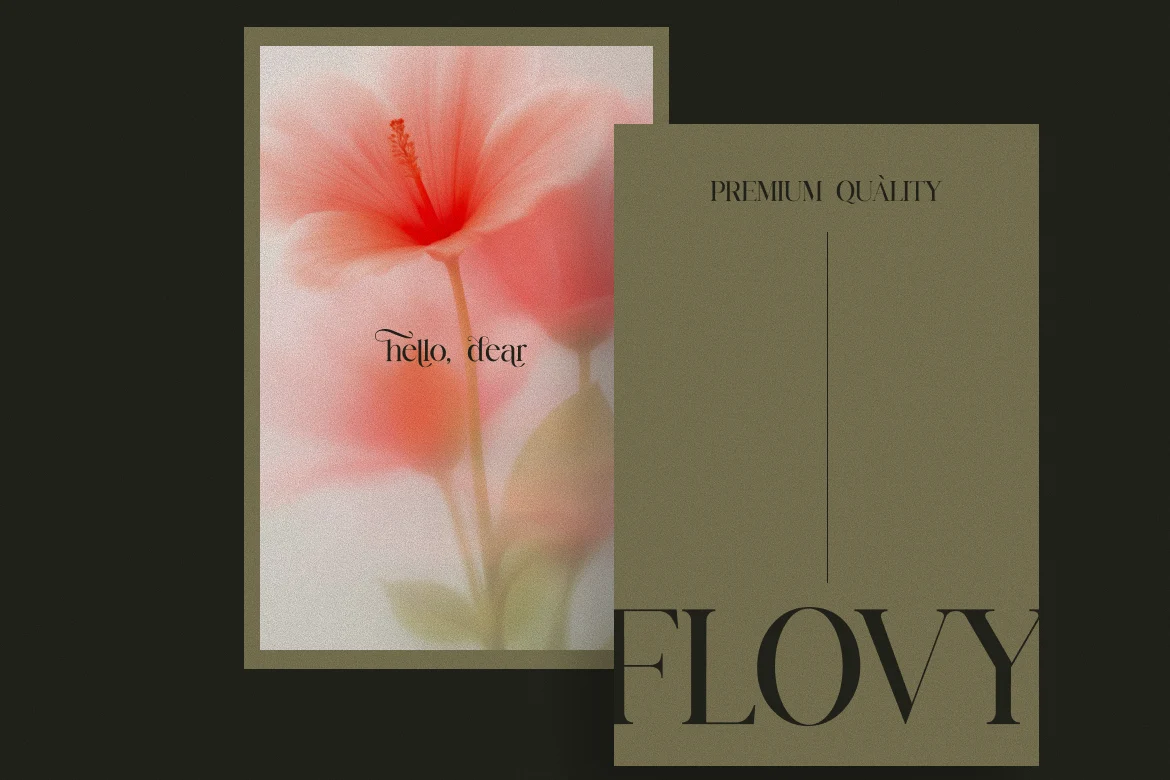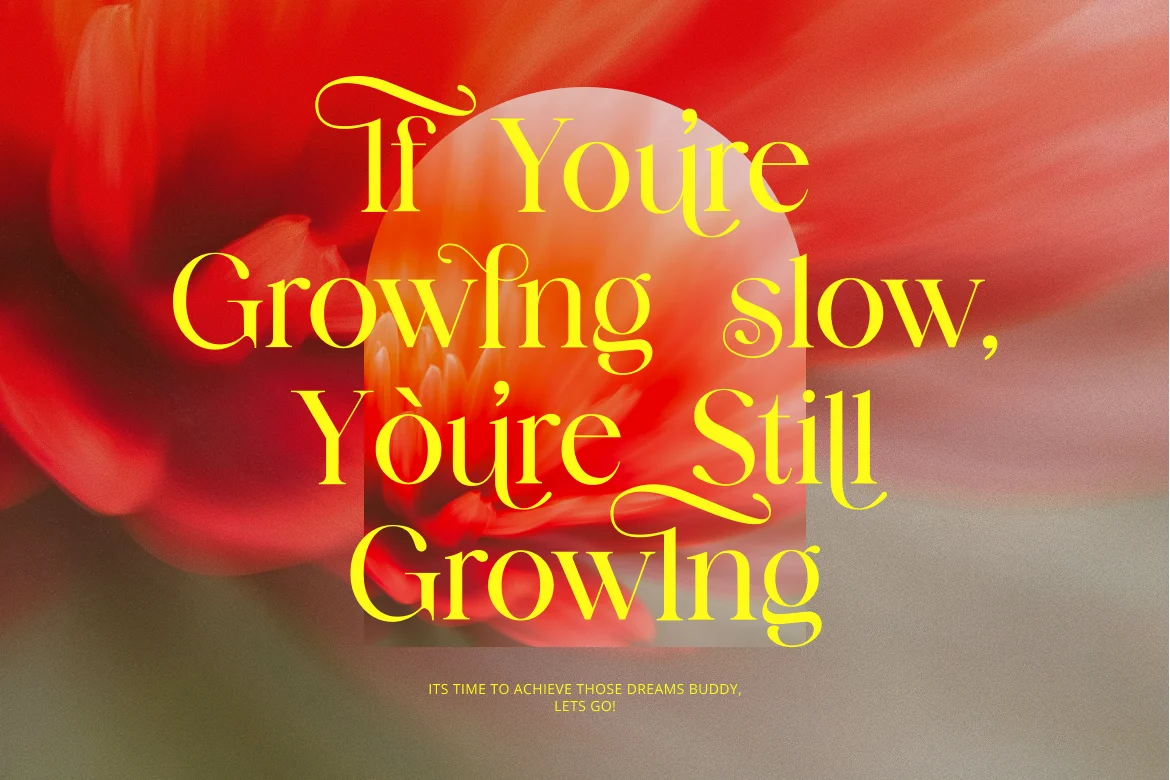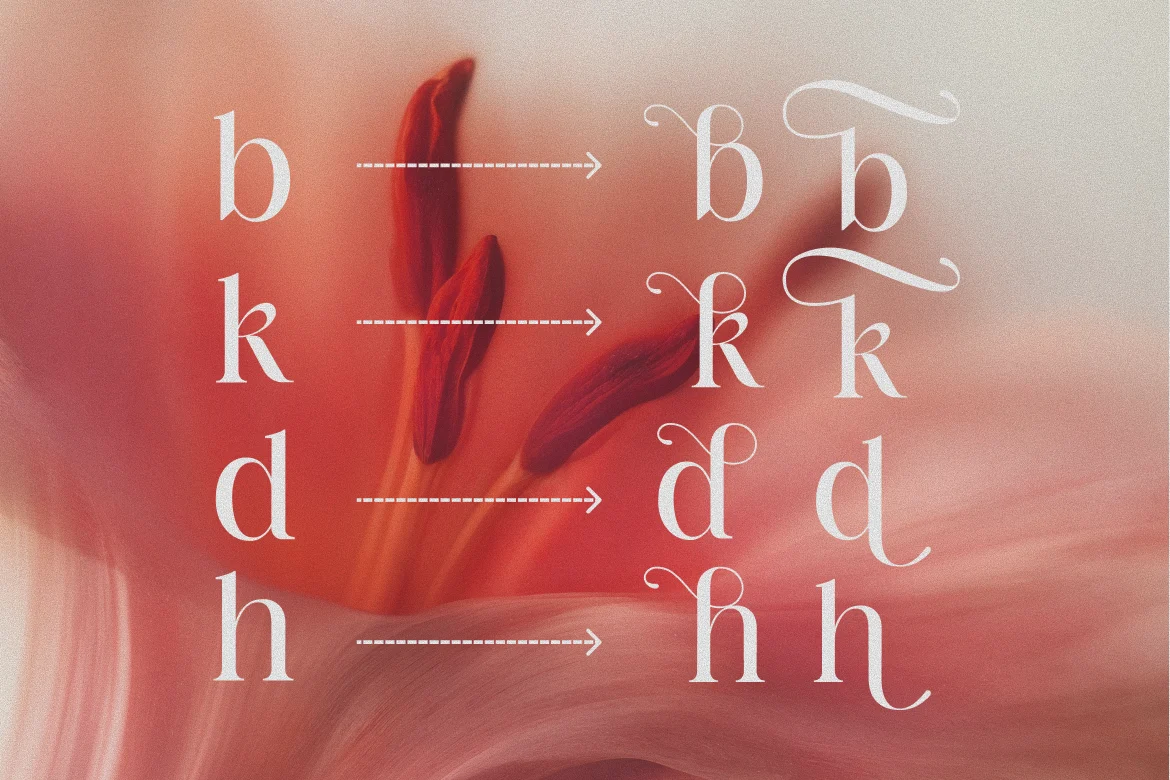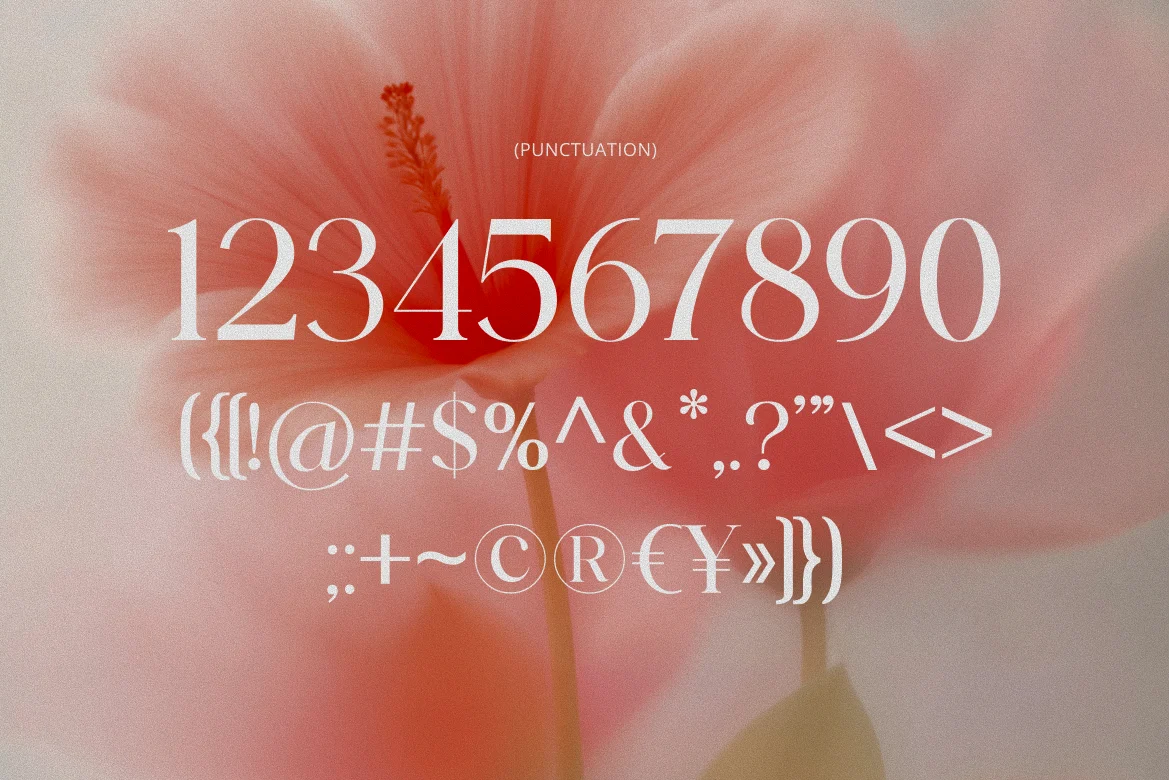
Barklie Luxury Bold Font
Barklie Luxury Bold Font is a nostalgic serif font that blends timeless elegance with subtle calligraphic script accents, making it a perfect choice for designs that demand both beauty and character. With graceful ligatures and high-contrast strokes, Barklie evokes a sense of classic refinement while remaining fresh and contemporary. The combination of serif sophistication and ornamental detailing makes this font ideal for designers looking to elevate branding, editorial layouts, or heartfelt visual storytelling.
Suitable For Wedding invitations, editorial headlines, luxury brand identity, fashion magazines, poetry quotes, high-end packaging, elegant logo design, boutique labels, perfume branding, floral greeting cards, romantic social media posts, fine art posters, and classic book covers.
Main Features
- Ligatures & Alternate
- Numeral & Punctuations